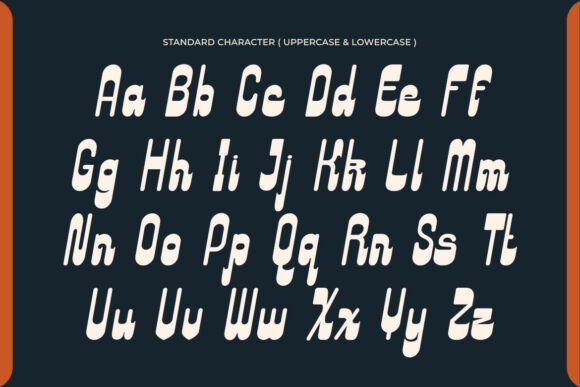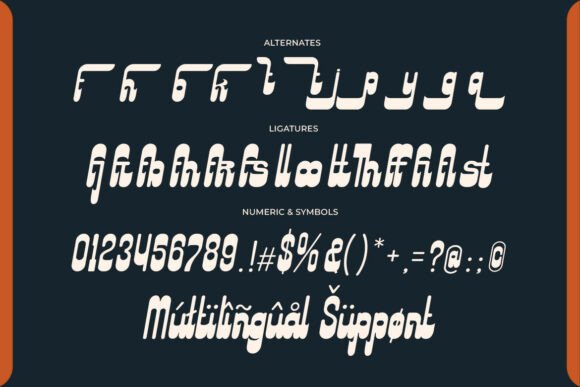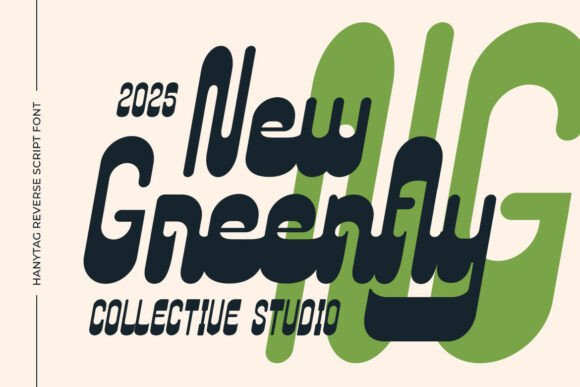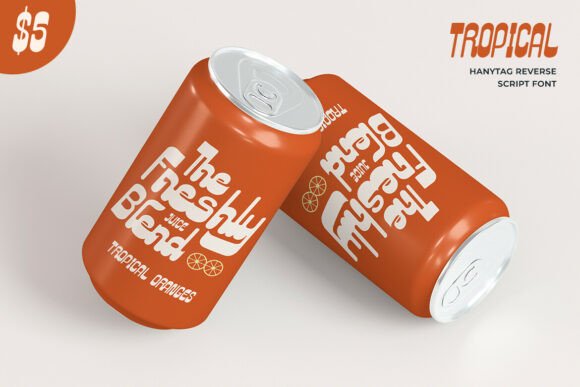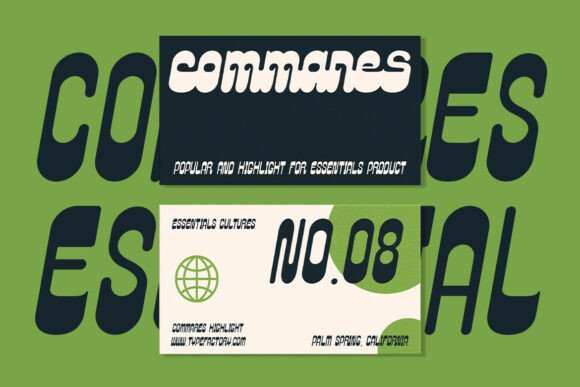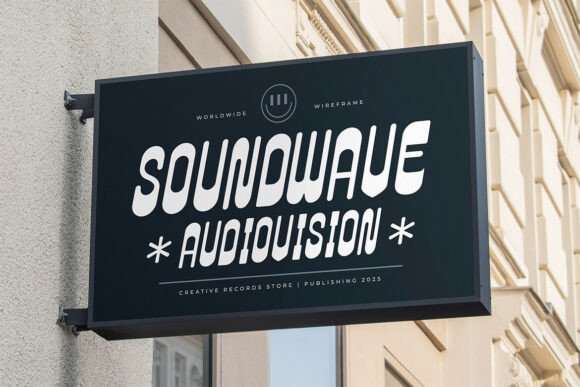
Introducing Hanytag Font: A Bold Reverse Script Typeface
In the world of typography, a new font has emerged that’s making waves with its unique and eye-catching design. Meet Hanytag, a bold reverse script typeface that’s perfect for designers and crafters looking to add a touch of playfulness and confidence to their projects. In this article, we’ll dive into the features and benefits of Hanytag, and explore how it can elevate your branding, packaging, posters, signage, and more.
What is Hanytag Font?
Hanytag is a bold reverse script typeface with rounded shapes and a strong visual rhythm. Its distinctive backward flow creates eye-catching wordmarks and expressive headlines that are sure to grab attention. The font features a unique design that’s both playful and confident, making it perfect for projects that require a bit of personality.
Key Features of Hanytag Font
Hanytag is more than just a pretty face – it’s a versatile font that’s packed with features to help you get creative. Here are some of the key features that make Hanytag stand out:
- Uppercase and Lowercase Characters: Hanytag includes both uppercase and lowercase characters, giving you the flexibility to create a range of different looks and styles.
- Alternates and Ligatures: The font includes a range of alternates and ligatures to help you add some extra flair to your designs.
- Numerals and Symbols: Hanytag comes with a full set of numerals and symbols, making it perfect for creating tables, lists, and other graphical elements.
- Multilingual Support: With support for multiple languages, Hanytag is a great choice for designers working on international projects.
Best Use Cases for Hanytag Font
So, what can you use Hanytag for? The answer is – almost anything! Here are some of the best use cases for this versatile font:
- Branding and Packaging: Hanytag is perfect for creating eye-catching logos, labels, and packaging designs that stand out on store shelves.
- Posters and Signage: The font’s bold, playful design makes it a great choice for posters, signage, and other large-format graphics.
- Product Labels: Hanytag is ideal for creating product labels that need to be both functional and visually appealing.
- Food and Beverage Designs: The font’s playful, cursive style makes it a great fit for food and beverage packaging, menus, and advertising.
- Social Media Graphics: Hanytag can add a touch of personality to your social media graphics, from Facebook posts to Instagram stories.
- Display Typography: The font is perfect for display typography, including titles, headings, and other large-format text.
Why Choose Hanytag Font?
So, why should you choose Hanytag over other fonts? Here are just a few reasons:
- Unique Design: Hanytag’s bold, reverse script design is unlike anything else out there – it’s sure to grab attention and make your designs stand out.
- Flexibility: With a range of features, including uppercase and lowercase characters, alternates, and ligatures, Hanytag gives you the flexibility to create a wide range of different looks and styles.
- Playful and Confident: The font’s playful, confident style makes it perfect for projects that require a bit of personality and flair.
Tips for Using Hanytag Font
Here are a few tips to help you get the most out of Hanytag:
- Use it for Display: Hanytag is best suited for display use, so try using it for titles, headings, and other large-format text.
- Experiment with Sizes: The font performs well at medium to large sizes, so don’t be afraid to experiment with different sizes and layouts.
- Pair it with Other Fonts: Hanytag can be paired with other fonts to create a range of different looks and styles – try experimenting with different combinations to find the one that works best for your project.
In conclusion, Hanytag is a bold, playful, and confident font that’s perfect for designers and crafters looking to add a touch of personality to their projects. With its unique design, flexibility, and range of features, Hanytag is sure to become a go-to font for anyone looking to create eye-catching wordmarks, expressive headlines, and stunning display typography. So why not give it a try and see what you can create?